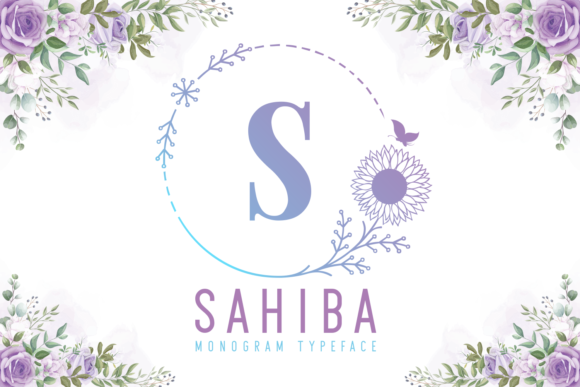
Dip into the whimsical world of Sahiba Font, where creativity blooms like a garden in full bloom! This enchanting decorative font is a canvas for your imagination, adorned with delicate floral motifs that dance across every letterform.
Sahiba Font is not just a font; it's a gateway to a world of endless possibilities. Its unique character makes it the perfect choice for adding a touch of whimsy and charm to your projects. Picture your designs blossoming with Sahiba's elegant curves and intricate details, capturing the hearts of all who behold them.
Whether you're crafting personalized gifts for your little ones, designing invitations for special occasions, or creating marketing materials that stand out from the crowd, Sahiba Font has the magic to elevate your creations. It's the font that will make your designs sing, enchanting your audience with its undeniable charm.
So, step into the captivating embrace of Sahiba Font today and let your imagination soar. With its captivating floral theme and endless possibilities, Sahiba Font is the perfect choice for adding a touch of magic to your designs.